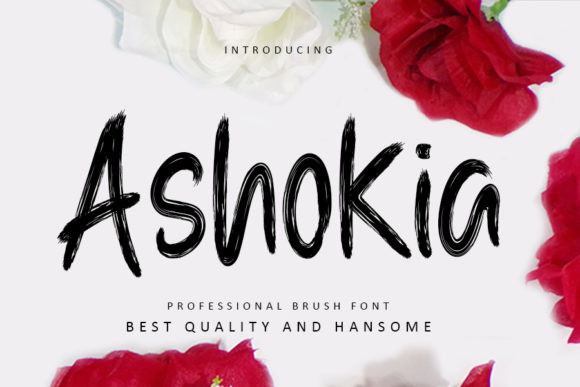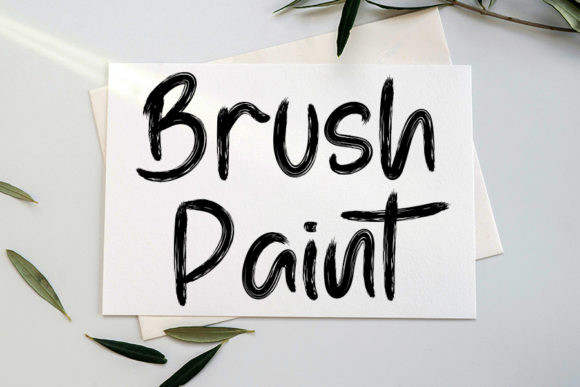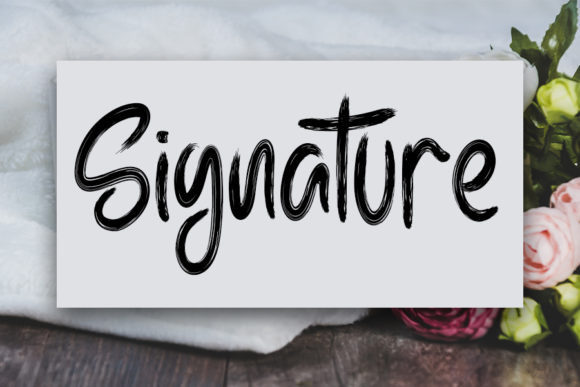
Ashokia Font
Ashokia is a sweet and delicate brush style script font. This font is the ideal font for adding an adventurous and authentic feel to your next design idea!